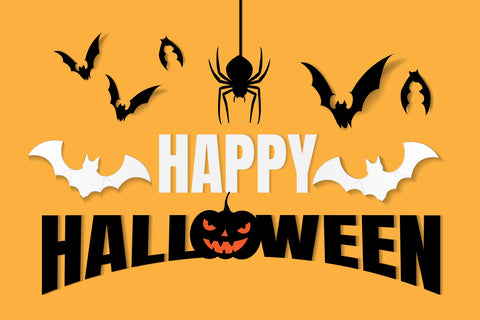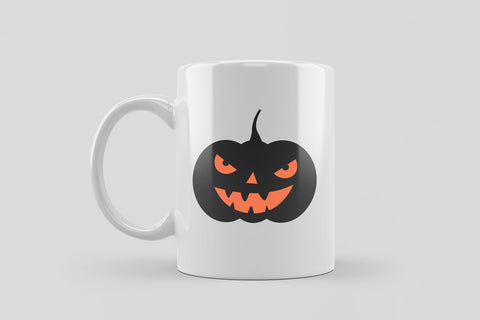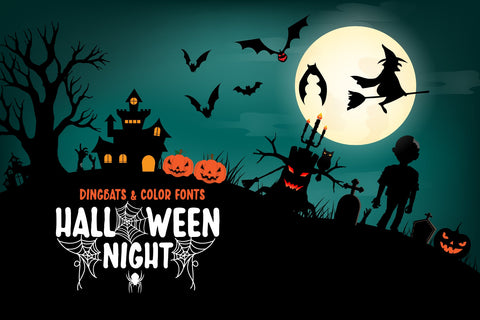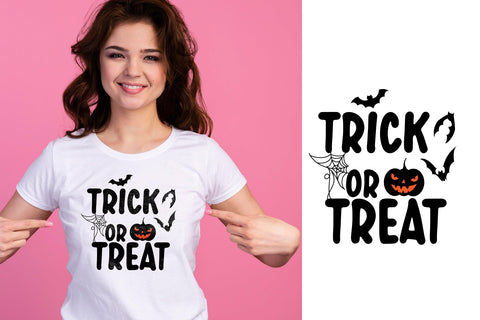
Halloween Night Dingbats&Color Font
Halloween Night is a Dingbats font designed in the form of a Halloween-themed colored font that you can easily implement. use it to create gorgeous invitations, beautiful stationary art, eye-catching social media posts, and beautiful greeting cards. Add this beautiful font to each of your creative ideas, and notice how it makes them stand out.